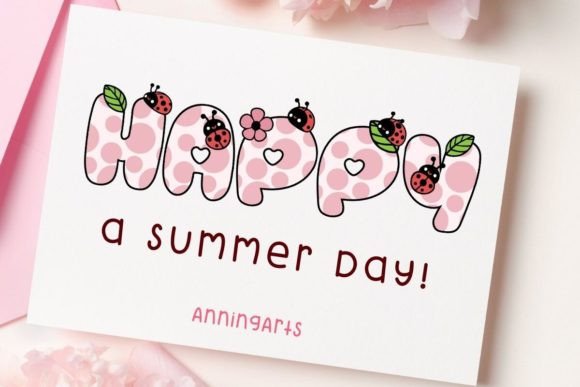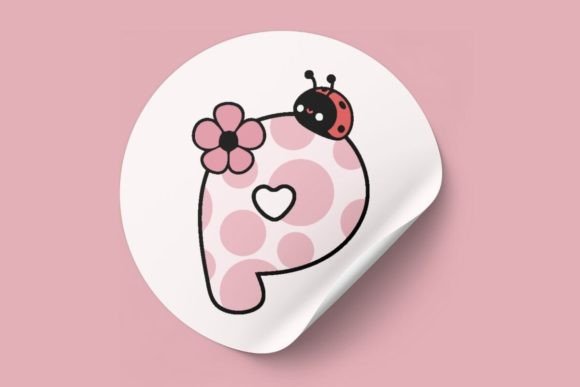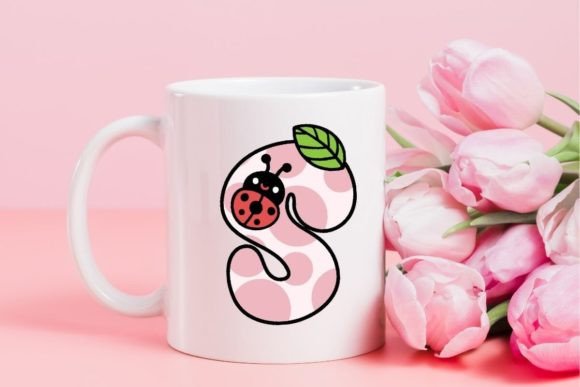
Introduction to Ladybug Font
β€œLadybug Font” is a charming and playful typeface, ideal for crafting an enchanting and whimsical atmosphere in your designs.
This font features adorable, rounded characters adorned with pink polka dots, bringing a soft, youthful vibe Each letter is uniquely decorated with cute elements like ladybugs, green leaves, and tiny flowers, enhancing its vibrant and cheerful aesthetic.
Key Features of Ladybug Font
Why Choose Ladybug Font?
Ladybug Font offers exceptional quality and versatility, making it a valuable addition to your design toolkit. Whether you’re creating for personal projects or commercial use, Ladybug Font delivers professional results.